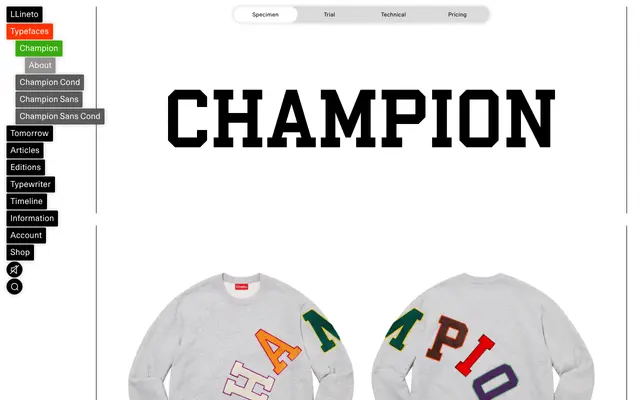
LL Champion
Lineto · Weichi He · 2024
A rigorously systematised take on American varsity slab lettering, designed by Weichi He with no curves and a duplexed fixed box width across three weights and two widths.
Weichi He applied a research-led, body-typeface methodology to the historically improvised tradition of US sports jersey lettering, producing a family of nine styles that strips the genre of every curve while retaining its blunt, block-like appeal. The duplexed structure keeps text reflow-free when switching weights, an unusual feature for display type that also reinforces the mechanical logic of the letterforms. A Carved variant adds a three-dimensional quality, and LL Champion Sans extends the family with a Shadow version suitable for layered colour work.
A monolinear, angular slab serif with no curves, explicitly in the tradition of American varsity wood type and sports jersey lettering. The slab category fits given the prominent, block-like serifs; the geometric subcategory reflects its strictly mechanical, geometry-driven construction.